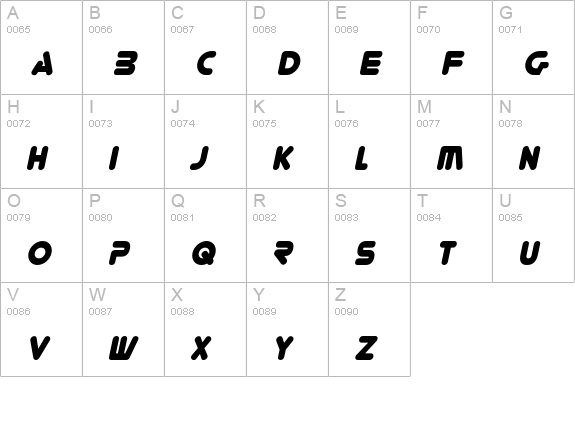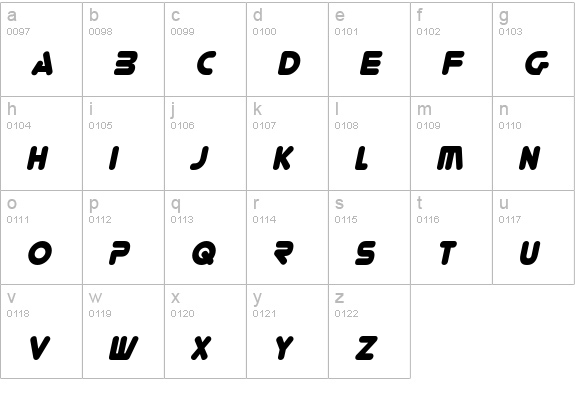
You're Gone Italic is a distinctive, italic variant in the You're typeface family \xE2\x80\x94 well suited to design and typography projects.
Introducing You're Gone Italic font, a sleek and modern typeface that exudes elegance and sophistication. This font features a unique italicized design that adds a touch of flair to any project. With its clean lines and stylish curves, You're Gone Italic is perfect for adding a touch of class to your designs. Best of all, You're Gone Italic is completely free to download at FontsMarket.com. Whether you're working on a professional project or a personal creation, this font is sure to make a statement. Don't miss out on the opportunity to elevate your designs with the stunning You're Gone Italic font. Download it today and unleash your creativity!